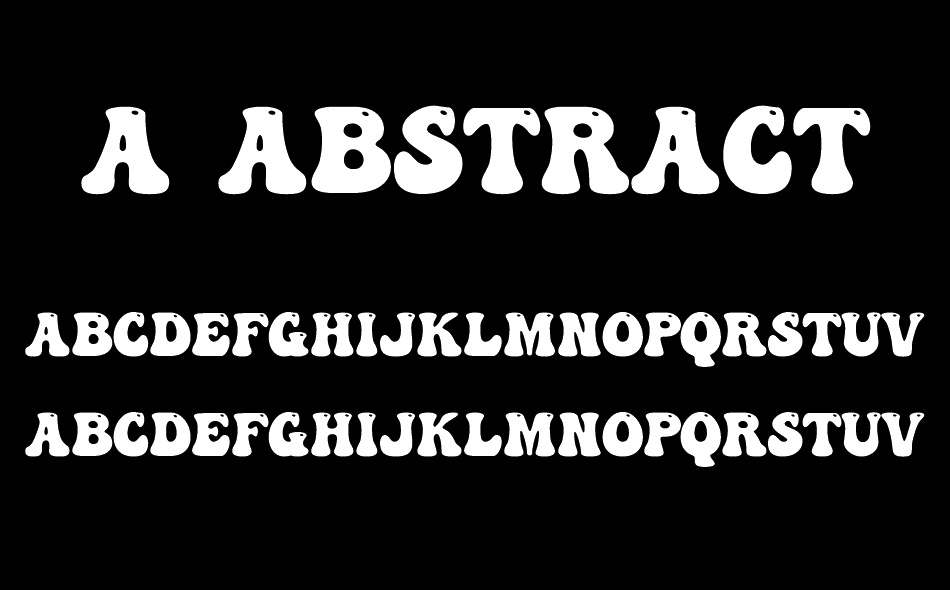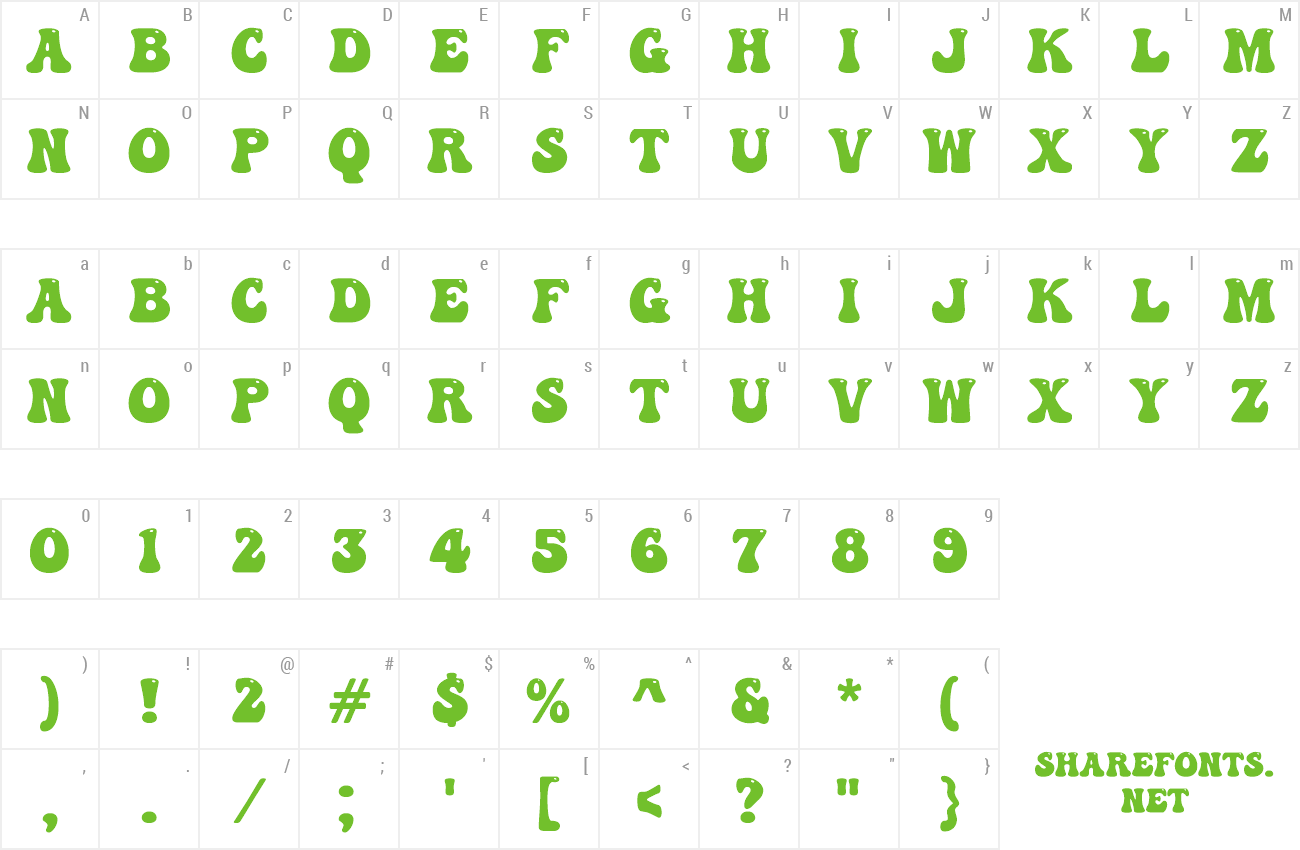
Abstract Groovy Font
Abstract Groovy Font - Web abstract groovy font is a unique display font that evokes a playful and nostalgic feeling, making it a great choice for anyone. Web abstract groovy font has a playful nostalgic feel and delivers a cool vintage/retro aesthetic. Perfect for making your designs pop with a retro,. Web archive of freely downloadable fonts. Unlock your creativity with our free abstract, groovy fonts. Web abstract groovy font has a playful nostalgic feel and delivers a cool vintage/retro aesthetic. Browse by alphabetical listing, by style, by author or by popularity. It looks like a balloon version of.
Web abstract groovy font has a playful nostalgic feel and delivers a cool vintage/retro aesthetic. Unlock your creativity with our free abstract, groovy fonts. Perfect for making your designs pop with a retro,. Browse by alphabetical listing, by style, by author or by popularity. Web abstract groovy font is a unique display font that evokes a playful and nostalgic feeling, making it a great choice for anyone. Web archive of freely downloadable fonts. Web abstract groovy font has a playful nostalgic feel and delivers a cool vintage/retro aesthetic. It looks like a balloon version of.
Unlock your creativity with our free abstract, groovy fonts. Web abstract groovy font is a unique display font that evokes a playful and nostalgic feeling, making it a great choice for anyone. It looks like a balloon version of. Web abstract groovy font has a playful nostalgic feel and delivers a cool vintage/retro aesthetic. Web abstract groovy font has a playful nostalgic feel and delivers a cool vintage/retro aesthetic. Web archive of freely downloadable fonts. Perfect for making your designs pop with a retro,. Browse by alphabetical listing, by style, by author or by popularity.
Web archive of freely downloadable fonts. Browse by alphabetical listing, by style, by author or by popularity. Unlock your creativity with our free abstract, groovy fonts. It looks like a balloon version of. Web abstract groovy font is a unique display font that evokes a playful and nostalgic feeling, making it a great choice for anyone.
Abstract Groovy Font Crella
Web archive of freely downloadable fonts. Perfect for making your designs pop with a retro,. Web abstract groovy font has a playful nostalgic feel and delivers a cool vintage/retro aesthetic. Browse by alphabetical listing, by style, by author or by popularity. Web abstract groovy font has a playful nostalgic feel and delivers a cool vintage/retro aesthetic.
It looks like a balloon version of. Web abstract groovy font has a playful nostalgic feel and delivers a cool vintage/retro aesthetic. Unlock your creativity with our free abstract, groovy fonts. Web abstract groovy font has a playful nostalgic feel and delivers a cool vintage/retro aesthetic. Browse by alphabetical listing, by style, by author or by popularity.
Web abstract groovy font is a unique display font that evokes a playful and nostalgic feeling, making it a great choice for anyone. Unlock your creativity with our free abstract, groovy fonts. Web abstract groovy font has a playful nostalgic feel and delivers a cool vintage/retro aesthetic. Browse by alphabetical listing, by style, by author or by popularity. Perfect for.
Web abstract groovy font has a playful nostalgic feel and delivers a cool vintage/retro aesthetic. Web abstract groovy font is a unique display font that evokes a playful and nostalgic feeling, making it a great choice for anyone. Perfect for making your designs pop with a retro,. Browse by alphabetical listing, by style, by author or by popularity. Web archive.
Unlock your creativity with our free abstract, groovy fonts. Web abstract groovy font has a playful nostalgic feel and delivers a cool vintage/retro aesthetic. Perfect for making your designs pop with a retro,. Browse by alphabetical listing, by style, by author or by popularity. Web archive of freely downloadable fonts.
a Abstract Groovy Font
Web archive of freely downloadable fonts. It looks like a balloon version of. Perfect for making your designs pop with a retro,. Web abstract groovy font has a playful nostalgic feel and delivers a cool vintage/retro aesthetic. Web abstract groovy font has a playful nostalgic feel and delivers a cool vintage/retro aesthetic.
Web abstract groovy font is a unique display font that evokes a playful and nostalgic feeling, making it a great choice for anyone. Web abstract groovy font has a playful nostalgic feel and delivers a cool vintage/retro aesthetic. Unlock your creativity with our free abstract, groovy fonts. Browse by alphabetical listing, by style, by author or by popularity. It looks.
Web abstract groovy font has a playful nostalgic feel and delivers a cool vintage/retro aesthetic. Browse by alphabetical listing, by style, by author or by popularity. Web archive of freely downloadable fonts. Web abstract groovy font is a unique display font that evokes a playful and nostalgic feeling, making it a great choice for anyone. Web abstract groovy font has.
It looks like a balloon version of. Unlock your creativity with our free abstract, groovy fonts. Web archive of freely downloadable fonts. Perfect for making your designs pop with a retro,.
Web abstract groovy font has a playful nostalgic feel and delivers a cool vintage/retro aesthetic. Web abstract groovy font has a playful nostalgic feel and delivers a cool vintage/retro aesthetic.